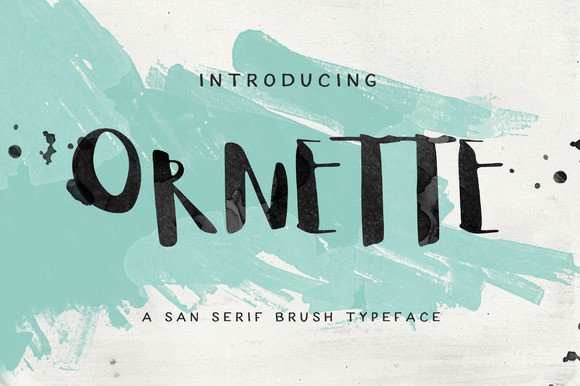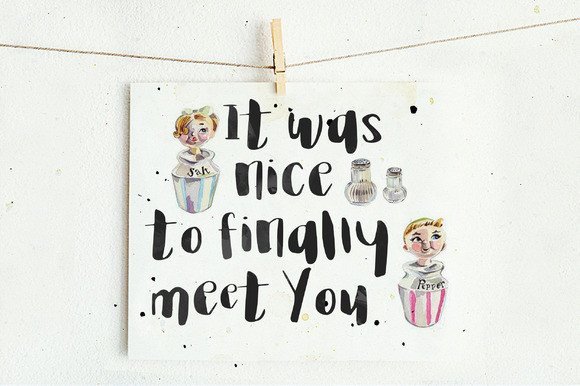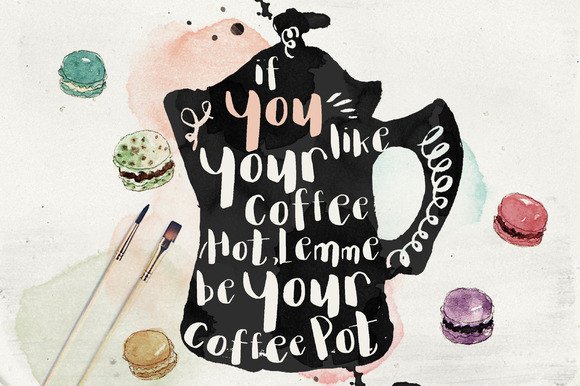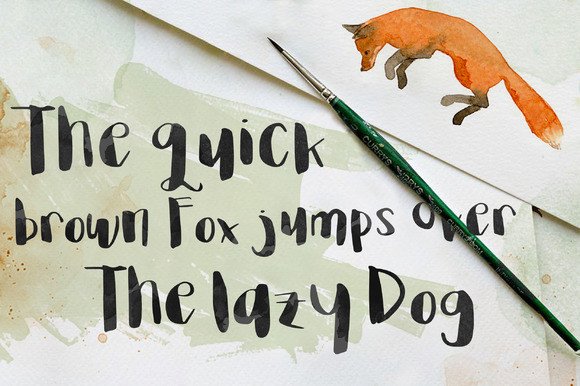
About Ornette Font
Ornette is a casual, cursive sans serif font.
Created with the idea of hand lettering, Ornette is best for: wedding invites, birthday cards and greetings, illustrations, return addresses, signatures, branding work, logos and tons more.
There are 2 types of Ornette: Regular and Printed, just so you can create a rustic design with the font.